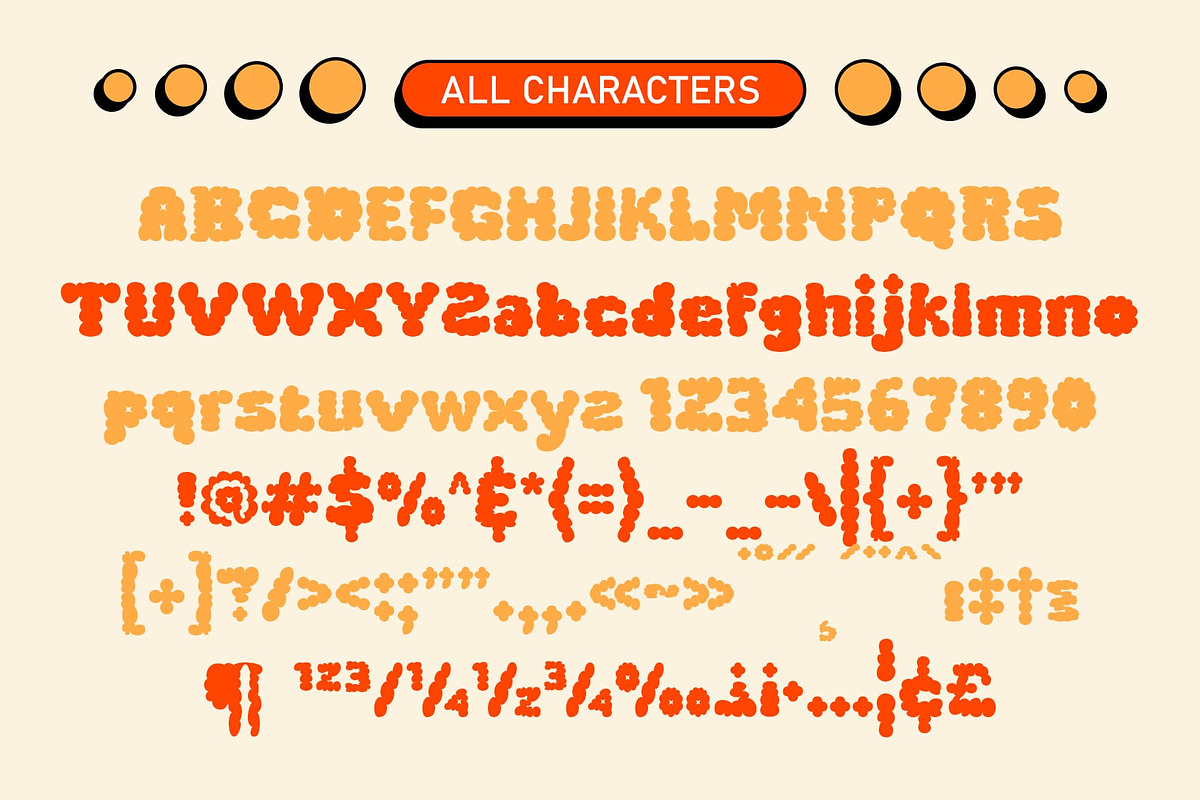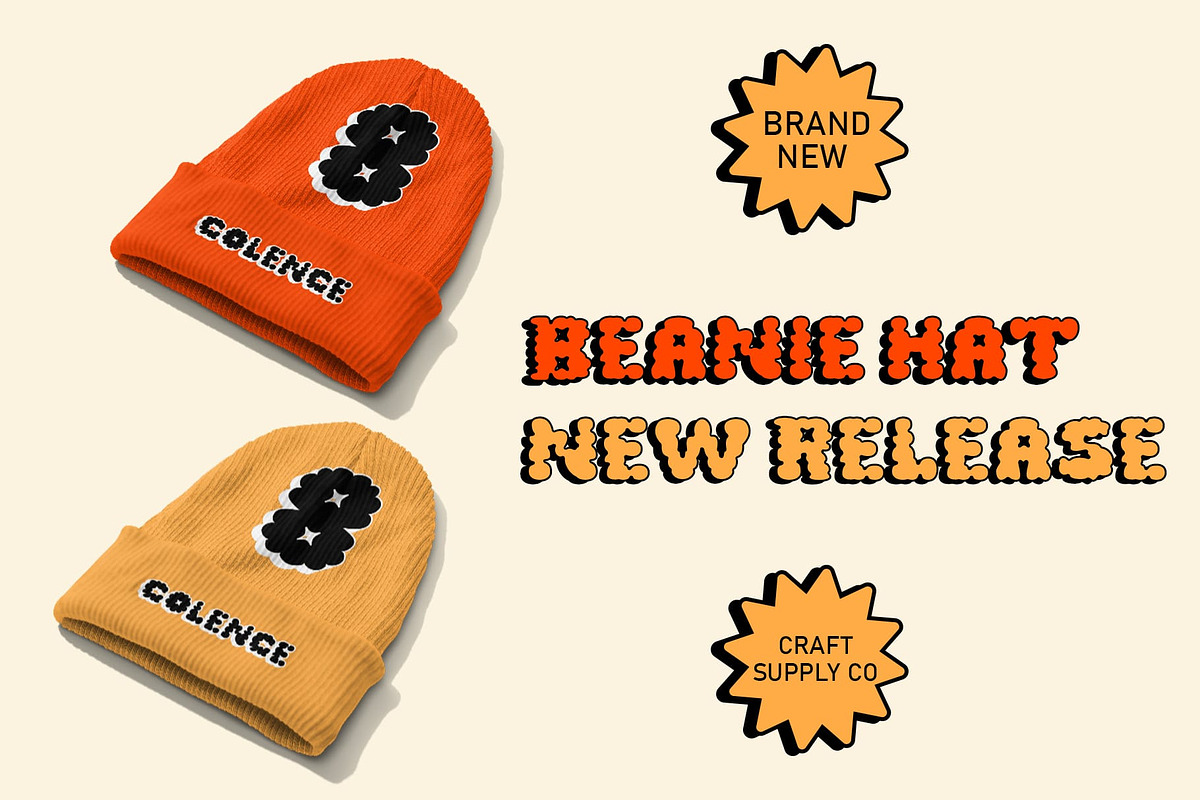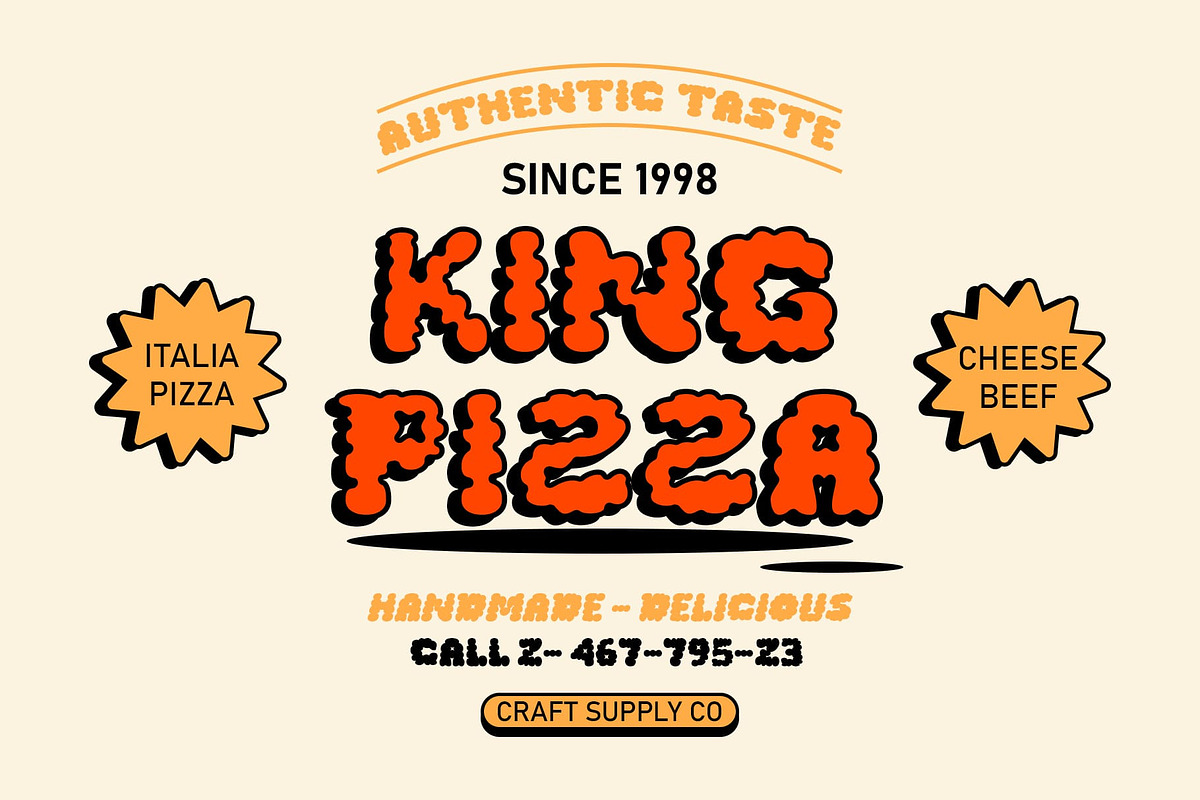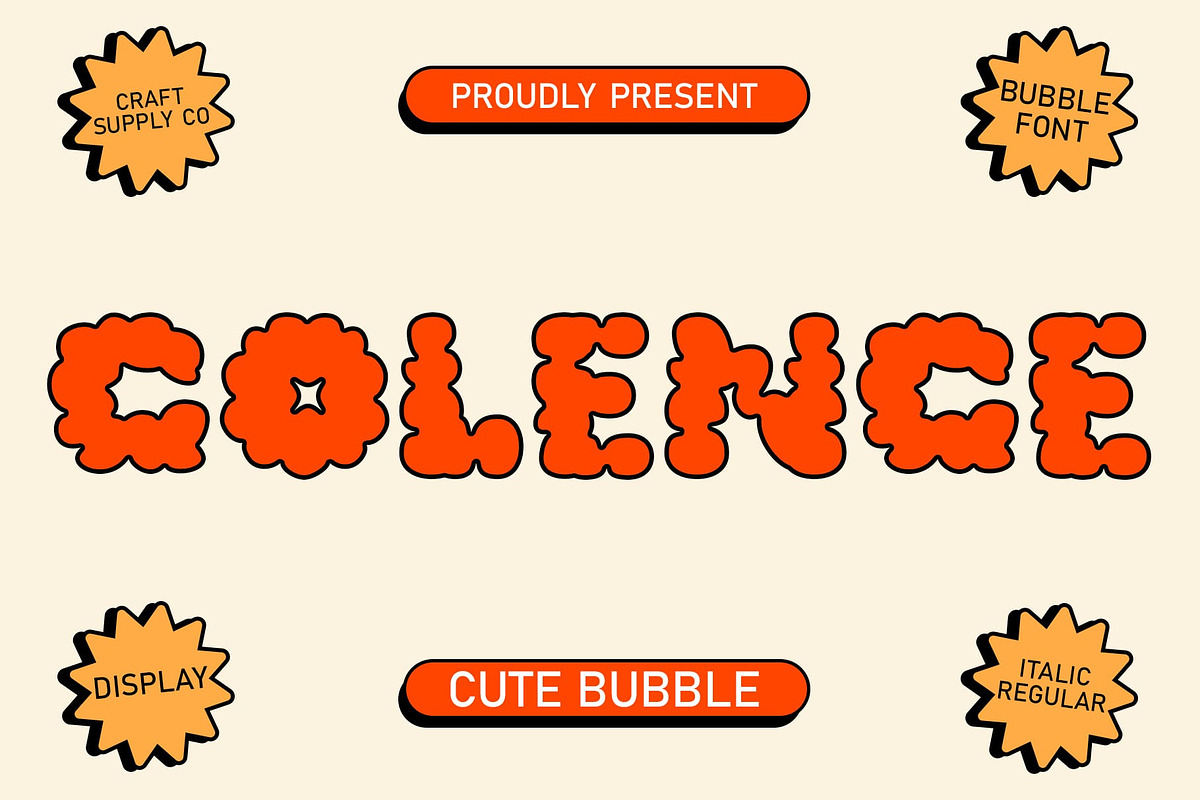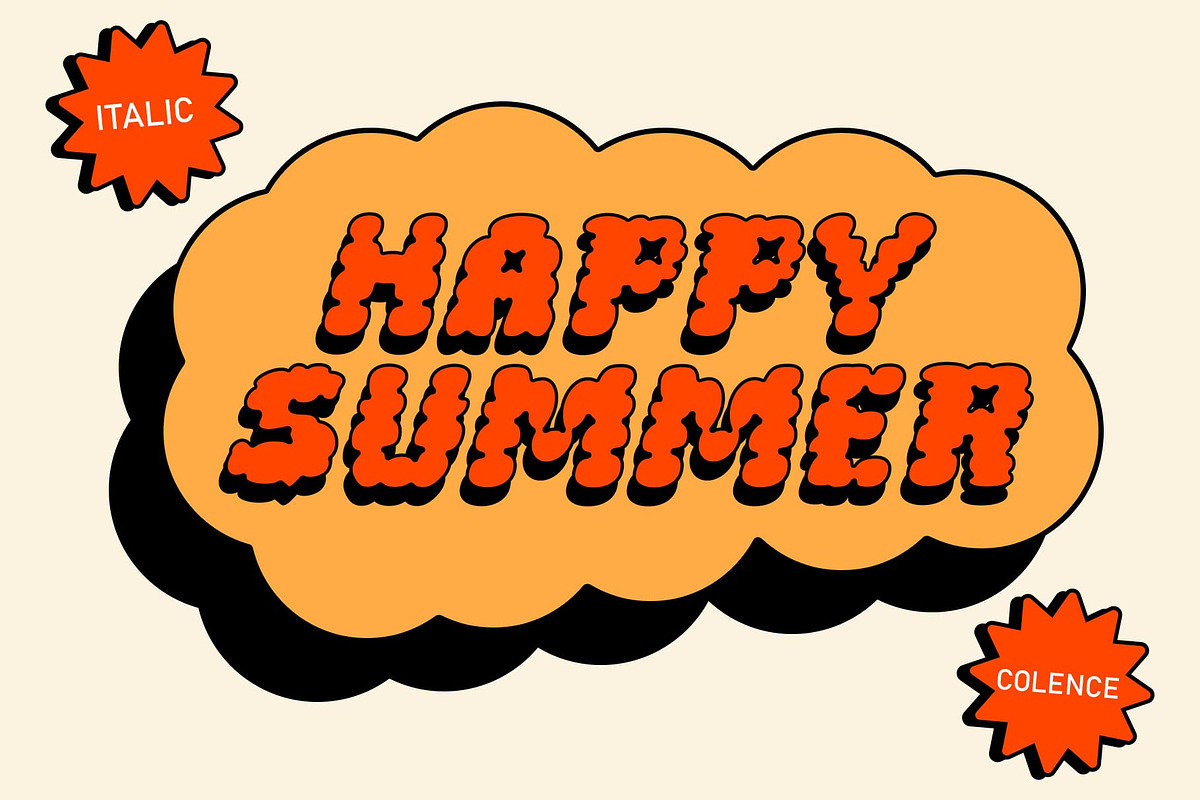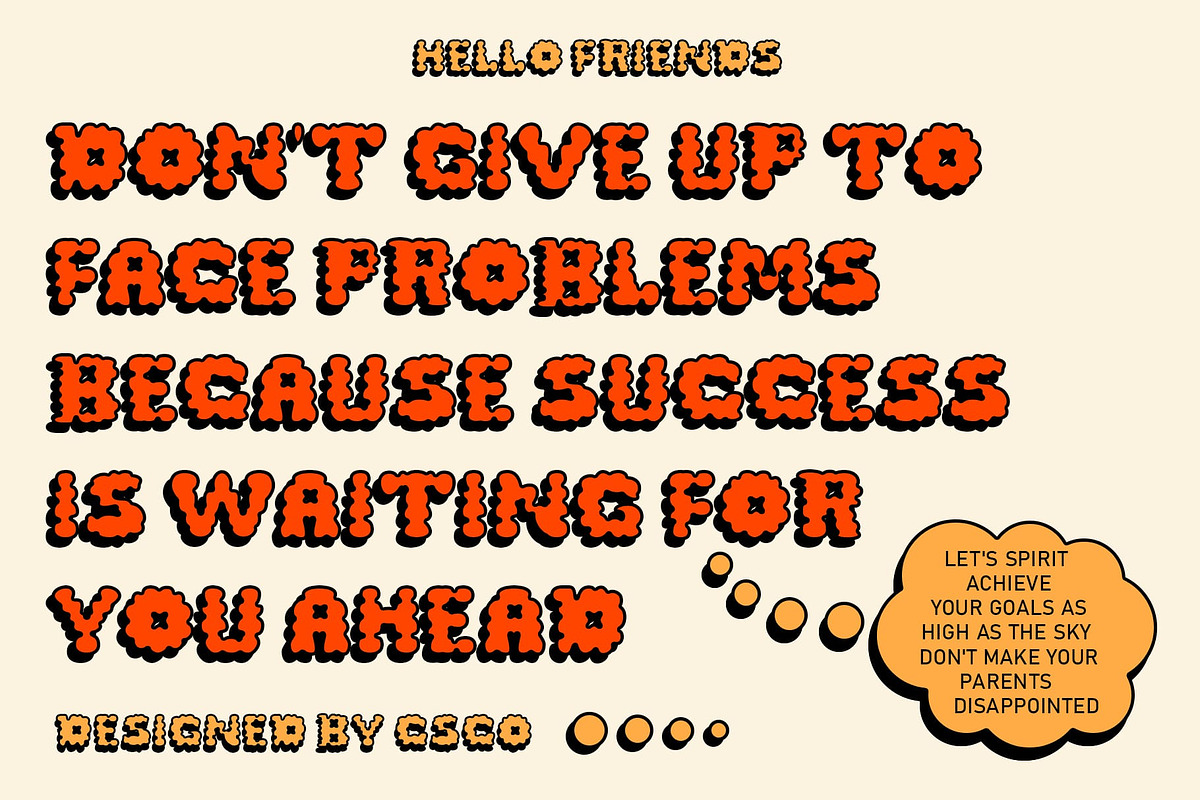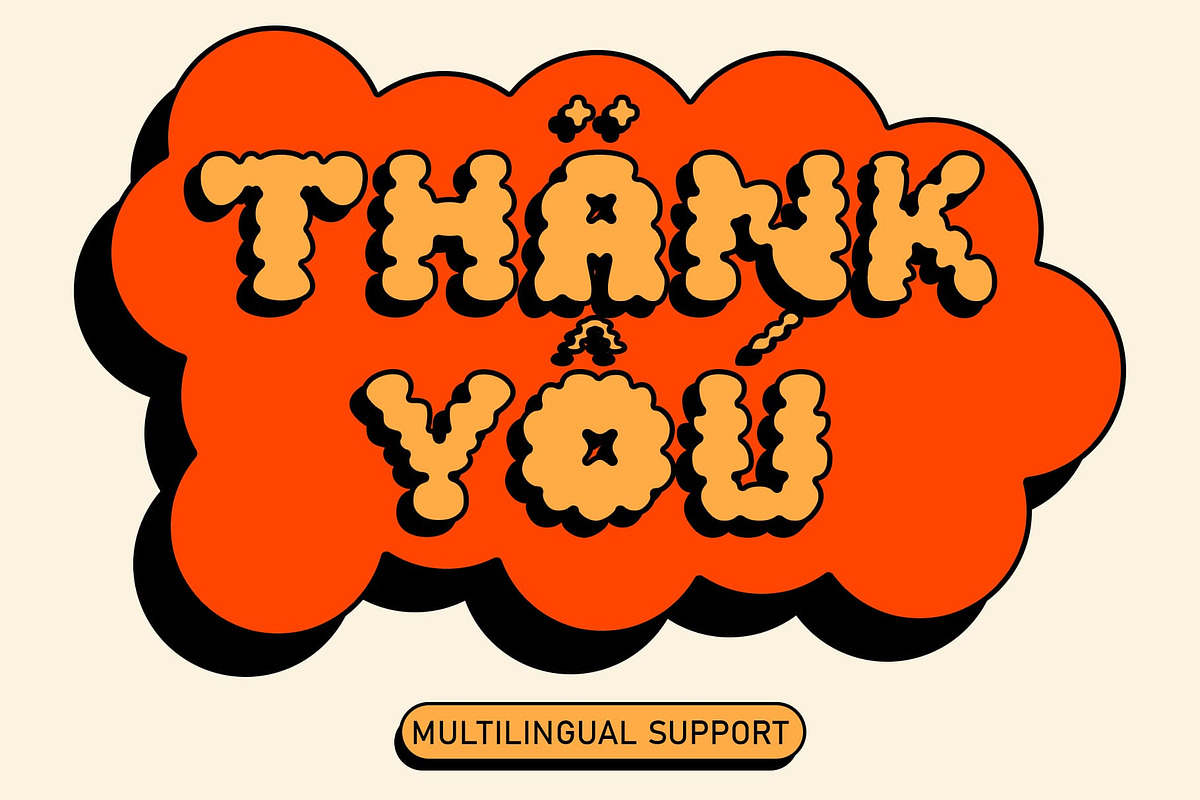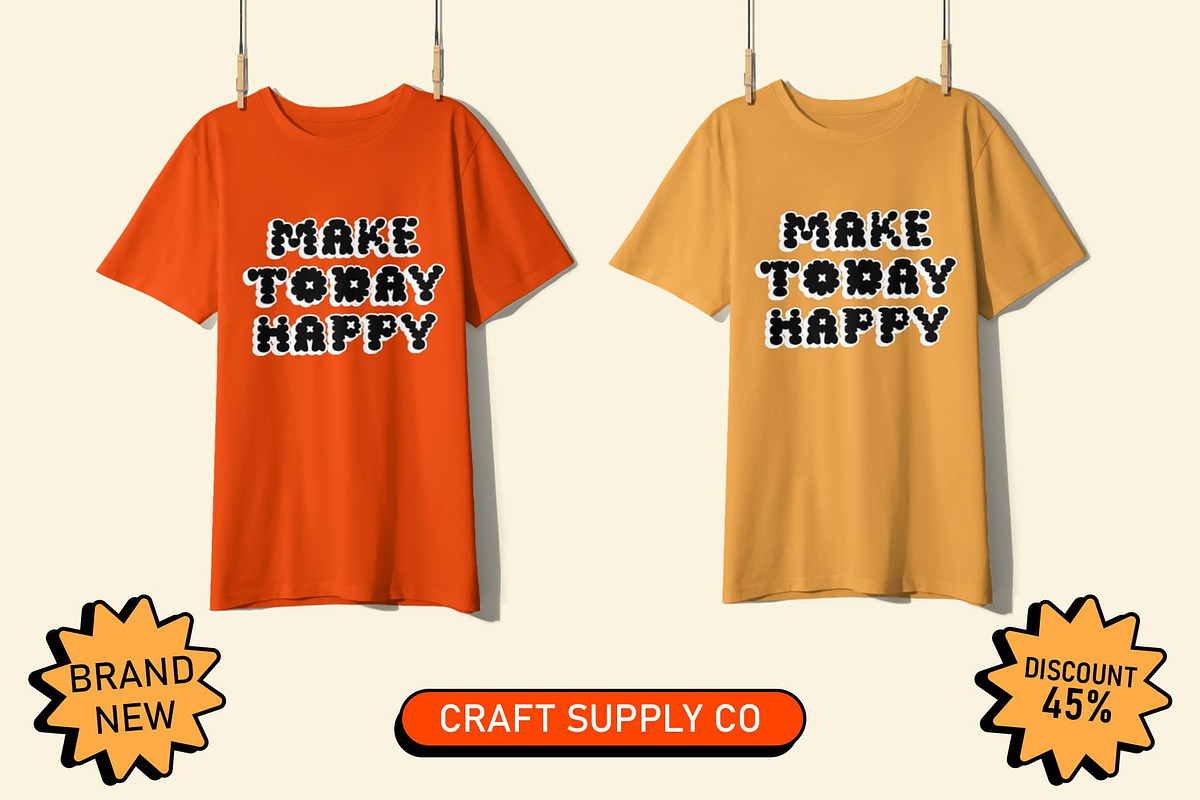
Colence – Cloudy Font
Colence Font: Bringing Clouds to Typography
Inspired by Playful Clouds Colence embodies the whimsical charm of fluffy clouds, infusing your designs with a playful and captivating aesthetic inspired by nature’s wonders.
Engaging Display Typeface Designed as a display typeface, Colence excels in grabbing attention and conveying a sense of fun and curiosity, making it ideal for various display needs.
Cloud-like Forms With its cloud-like shapes and endearing appeal, Colence adds a delightful touch to any project, from posters and banners to packaging and social media graphics.
Versatility and Appeal Beyond its novelty, Colence offers versatility in application, adapting effortlessly to a range of design contexts while maintaining its unique and eye-catching cloud-inspired style.
Creativity Meets Clouds Colence stands as a charming and engaging display font that brings the playful essence of clouds into typography. With its delightful forms and versatile appeal, it adds a touch of whimsy to any design project, capturing attention and sparking joy. Step into the world of Colence and let your creativity soar amidst the clouds.
- Colence Regular
- Colence Italic